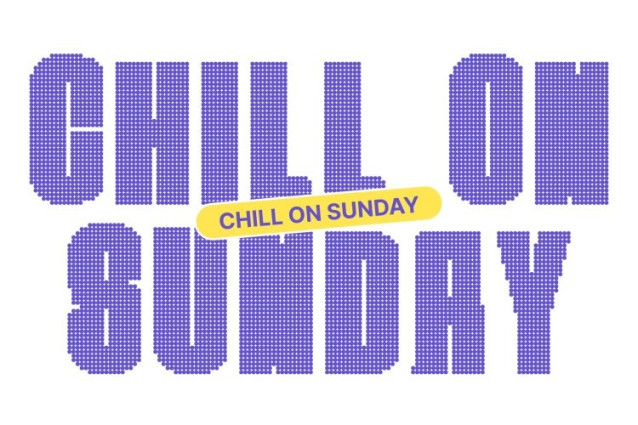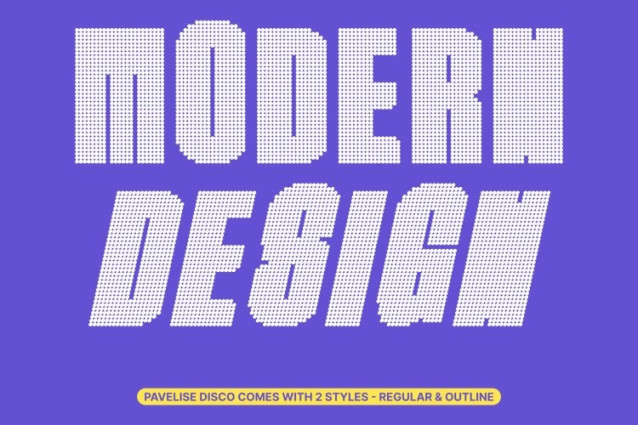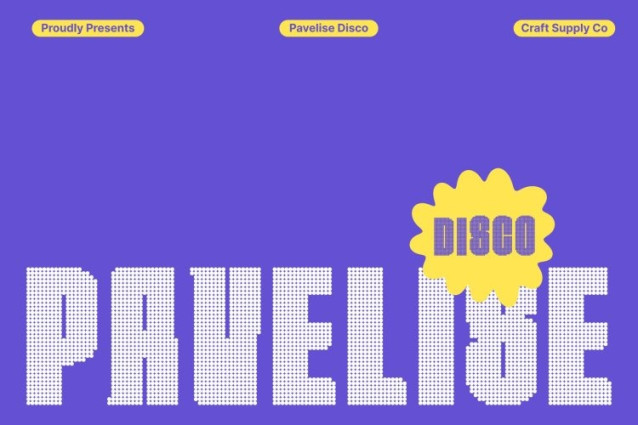
Pavelise Disco Font
Pavelise Disco Font This is a sans serif font built with a condensed, bold, and blocky structure, bringing a sharp industrial feel to any design. Its tough, masculine form exudes confidence and power, making it ideal for visuals that need to deliver a strong and assertive presence. Whether used up close or from a distance, its sturdy construction ensures clarity and impact.
Disco Effect for Dynamic Glamour
What sets this font apart is its vibrant disco effect, adding sparkle, rhythm, and visual vibration to each character. This glamorous overlay breathes energy into the rigid industrial geometry, creating a unique contrast between strength and shine. The result is a font that feels bold yet festive, modern yet eye-catching.
Perfect for Bold and Modern Designs
Designed for versatility, this font thrives in designs that demand attention and precision. Its bold structure paired with shimmering disco elements makes it perfect for posters, branding, headlines, advertisements, and creative layouts. Whether you’re crafting a bold statement or a stylish display, this font ensures your message stands out with clarity and flair.
Eye-Catching Balance of Style and Power
This font brilliantly merges industrial solidity with glamorous expression, offering designers a typeface that is equally strong, modern, and visually captivating. Use it to create designs that are not only bold and technical, but also stylish, energetic, and impossible to ignore.